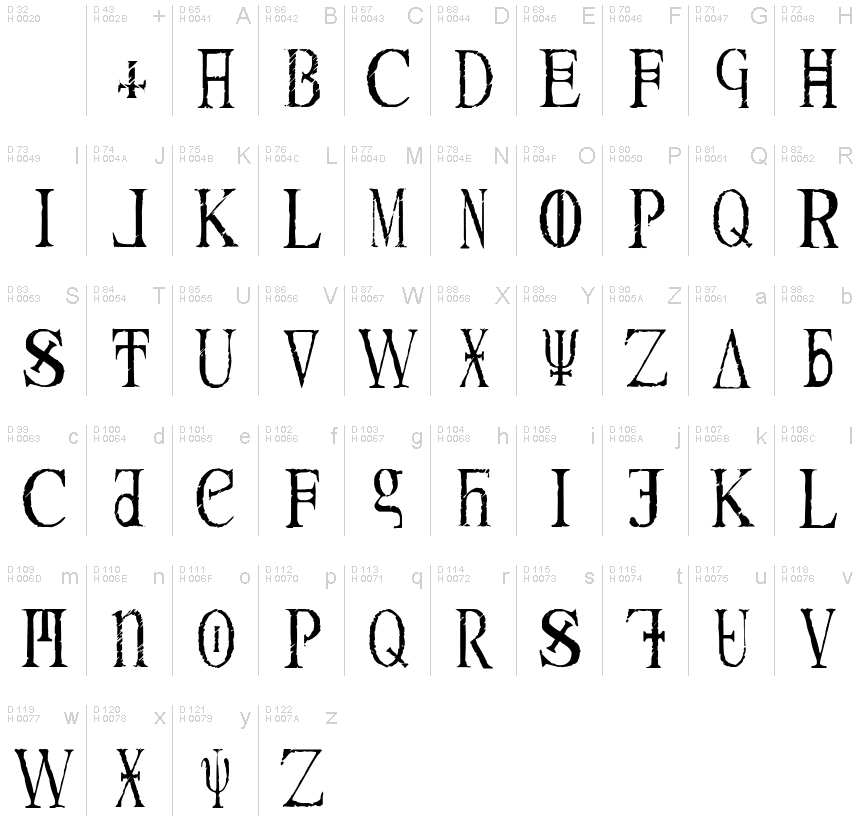
Magna Veritas
Magna Veritas is a commanding, gothic-inspired font that commands attention with its eroded, weathered aesthetic. Crafted by designer Andreas Johansson, this condensed display font radiates a sense of rugged authenticity and timeless charm.
The textured lettering evokes a sense of age and history, making it a compelling choice for editorial, packaging, or branding design seeking a distinctive, impactful visual identity. Magna Veritas' bold presence and versatile condensed width lend themselves well to a variety of applications, from eye-catching headlines to sophisticated title treatments.
This font's unique character and strong personality make it a compelling selection for designers seeking to elevate their work with a touch of vintage elegance.
The textured lettering evokes a sense of age and history, making it a compelling choice for editorial, packaging, or branding design seeking a distinctive, impactful visual identity. Magna Veritas' bold presence and versatile condensed width lend themselves well to a variety of applications, from eye-catching headlines to sophisticated title treatments.
This font's unique character and strong personality make it a compelling selection for designers seeking to elevate their work with a touch of vintage elegance.